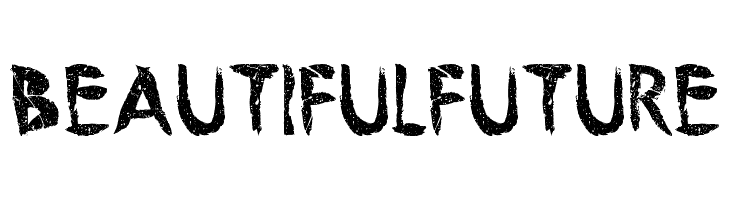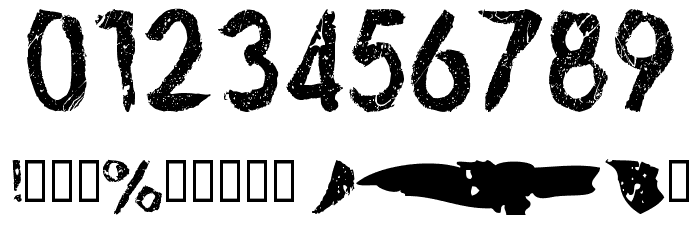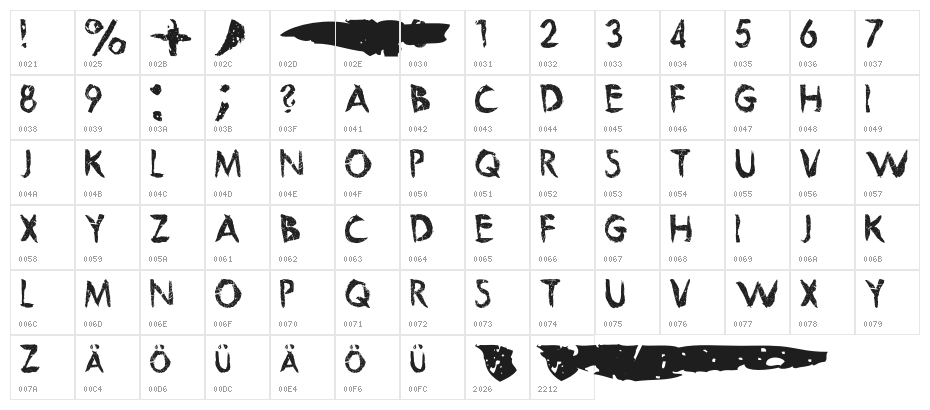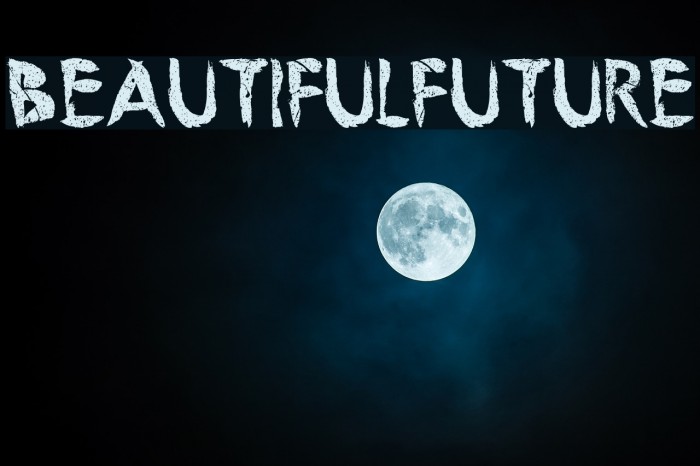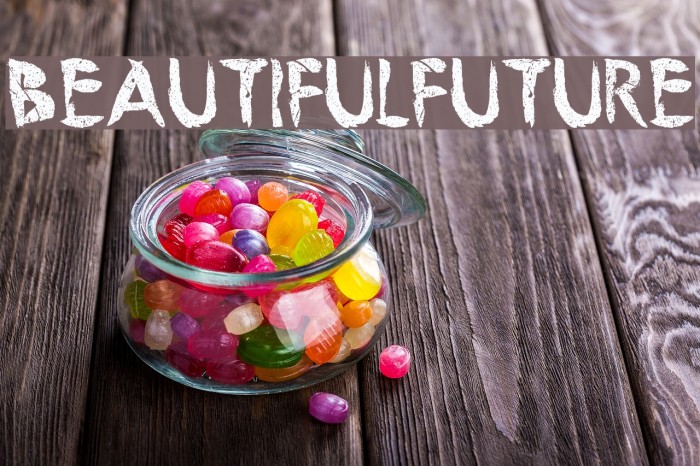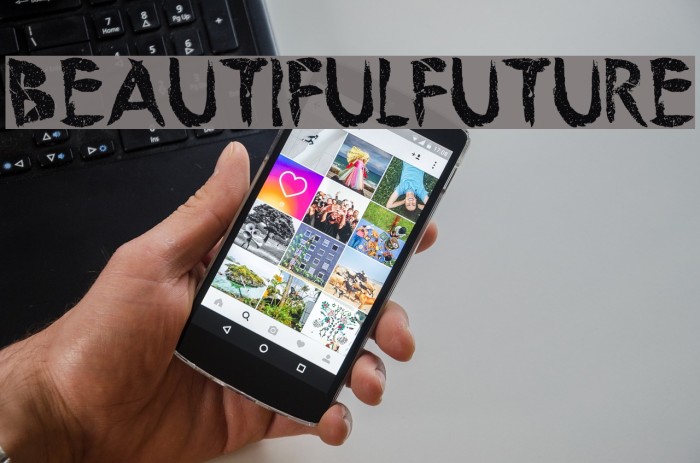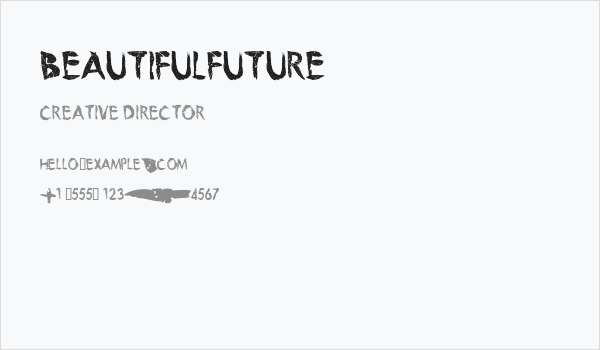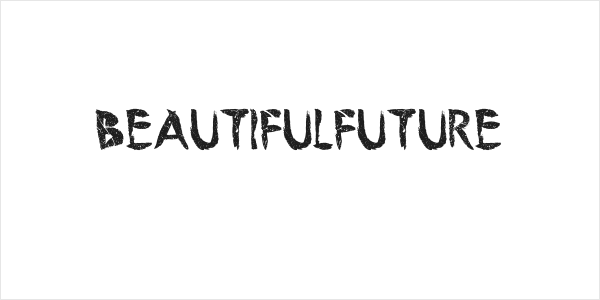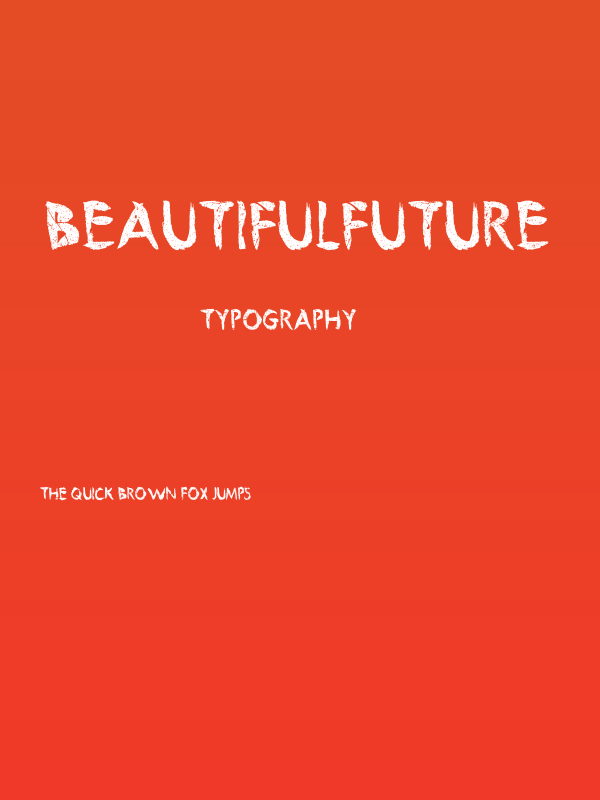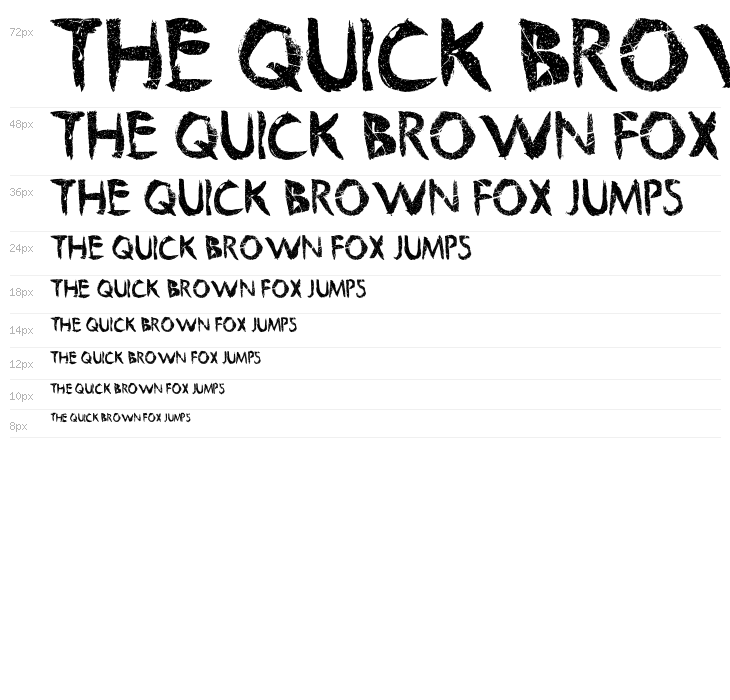
BeautifulFuture Font
BeautifulFuture Description
This font features a rugged, distressed appearance, reminiscent of a weathered or grunge style. The characters are bold and have a textured, uneven surface that gives them a unique and artistic look. The uppercase and lowercase letters maintain a consistent style, with jagged edges and irregular shapes that suggest a hand-crafted or vintage aesthetic. The numbers and special characters follow the same design principles, ensuring a cohesive look across all glyphs. This font is ideal for projects that require a bold, eye-catching display with a touch of nostalgia or artistic flair.
| Proposed Projects | Ideal for posters, album covers, branding, and any design needing a bold, artistic touch. |